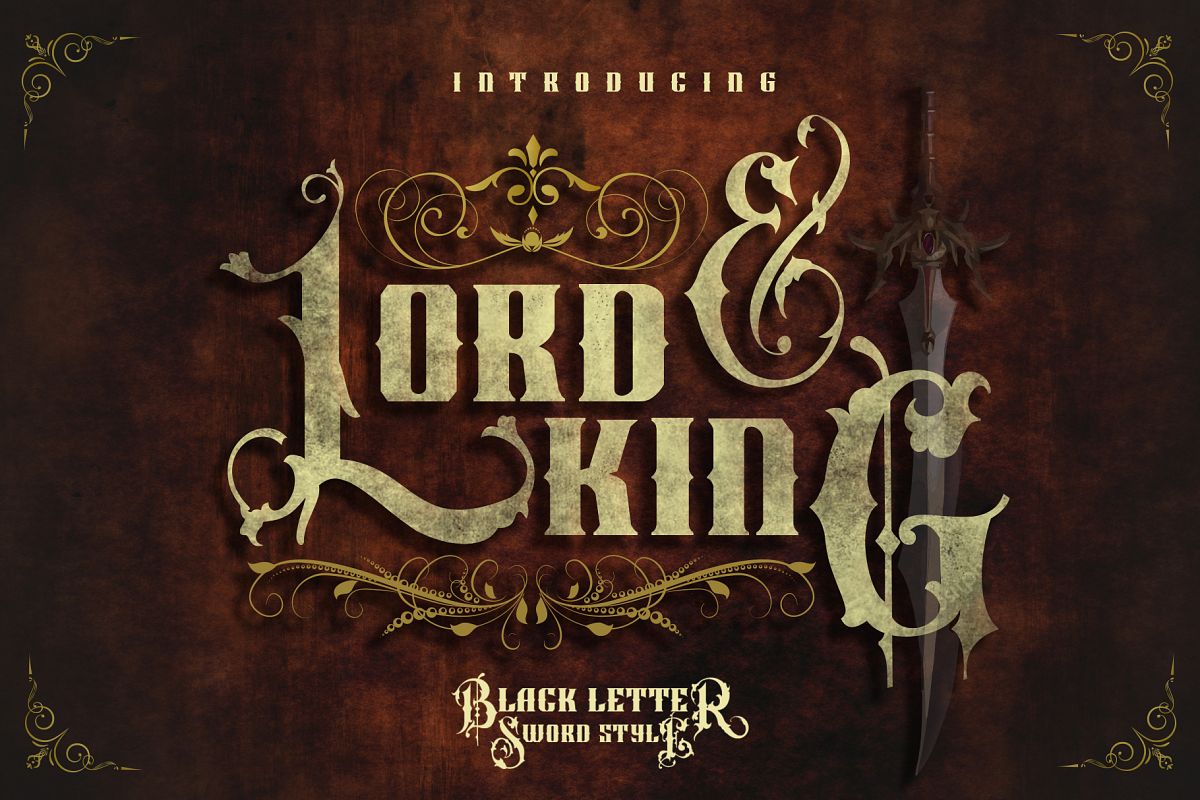
Lord & King Plus Ornaments
Lord & King Is Black Letter Font, this Font creating manually, by drawing until getting vector with Ai. Lord & King Black Letter was inspired by the Sword, all about the sword was inspired at every Uppercase. beside that, Lord & King also inspired by historical film, game, mythology, and other.
Lord & King Black Letter expected you will find fantastic gaming experience and past stories by this font and with extra ornament for you.
Lord & King is very suitable for anything your design product, like as Logos, Trade Mark, Poster, Business Cards, Game Magazine, Gift Cards, Cloth, T-Shirt, Tattoo Brands, Coffee, Restaurant, Food Car, CD and DVD Cover, Wall, Frame, and typing in your PC. I think... This Font you can use and Apply for anything you want.